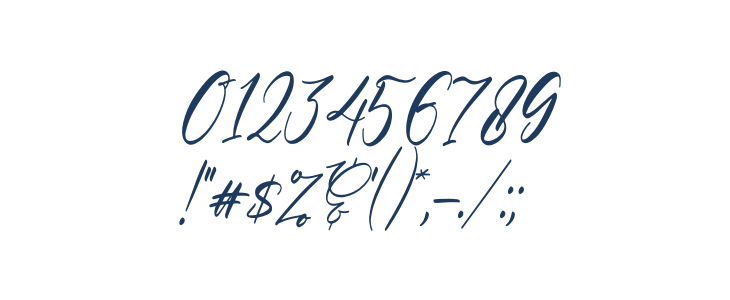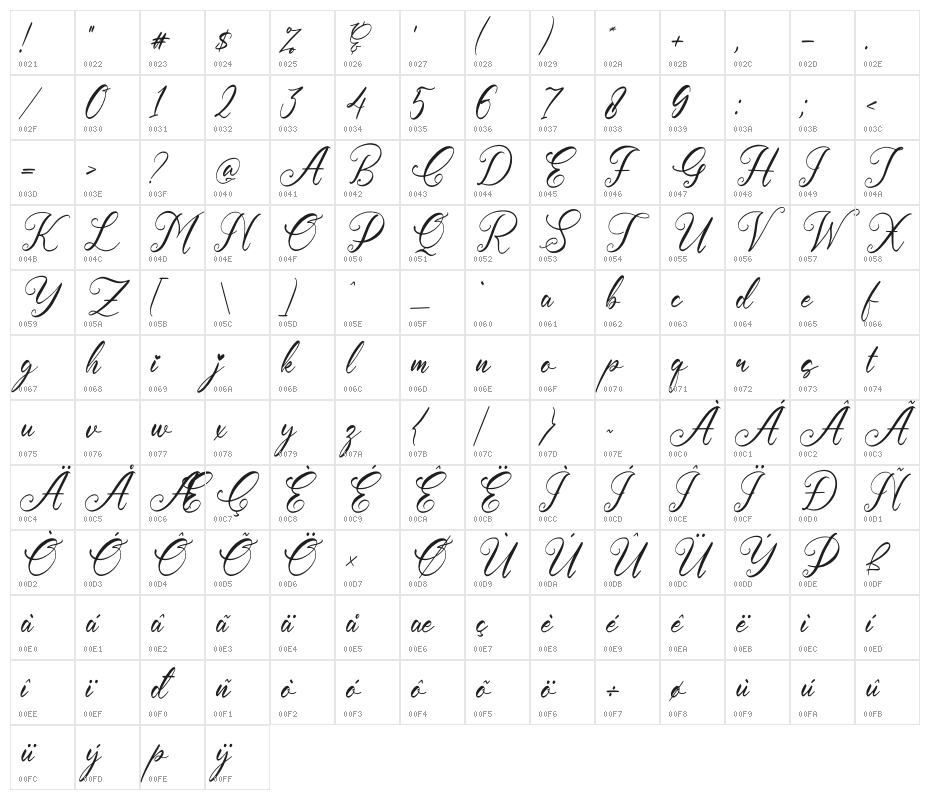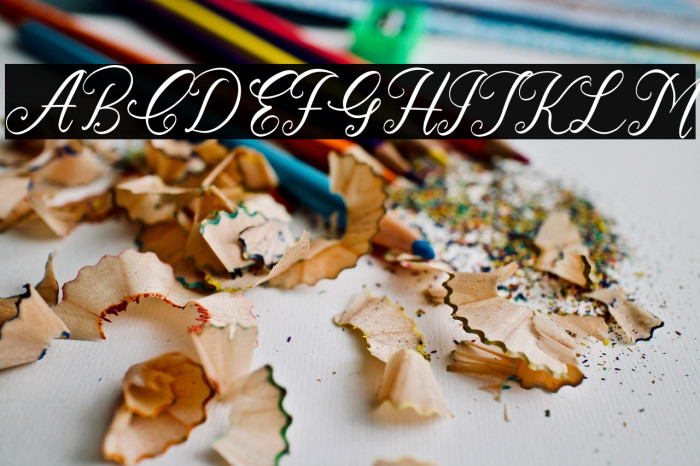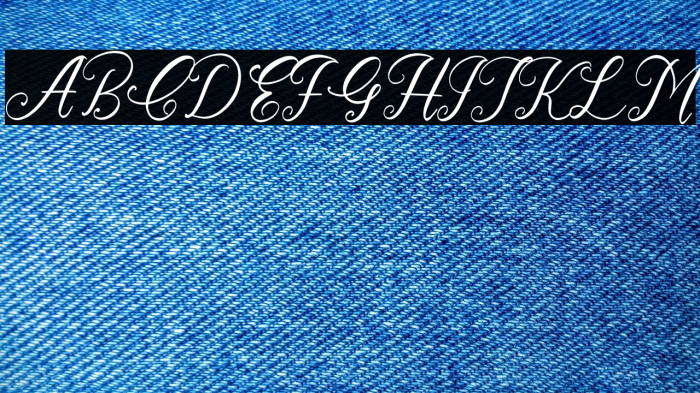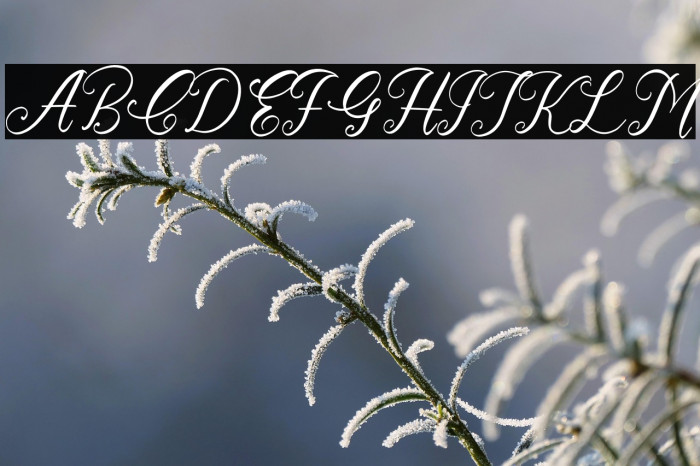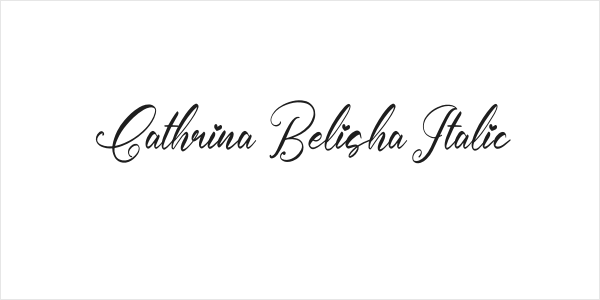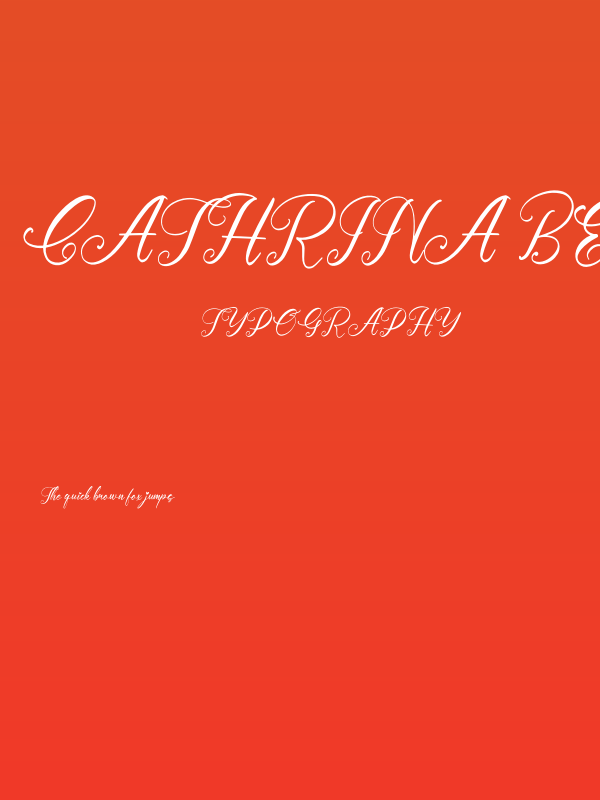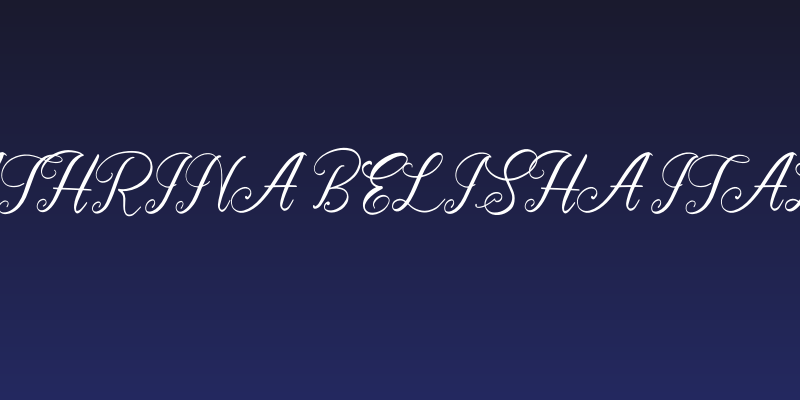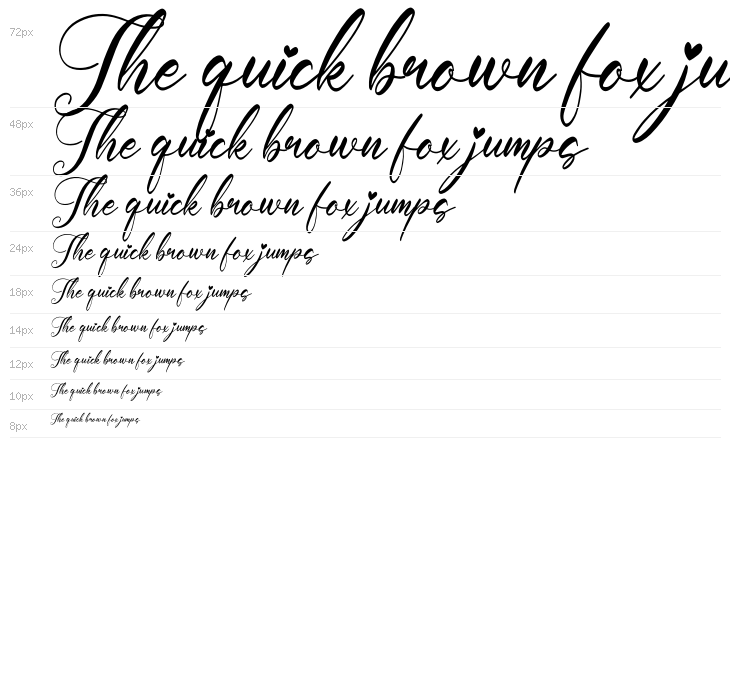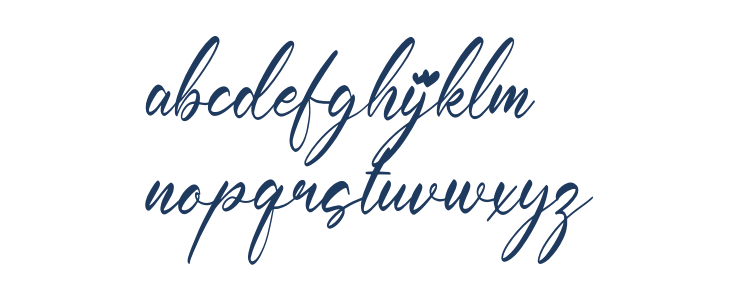
Cathrina Belisha Italic Font
Cathrina Belisha Italic Description
This elegant script font features a flowing, cursive style with intricate loops and swashes, creating a sense of sophistication and grace. The uppercase letters are adorned with decorative flourishes, while the lowercase letters maintain a smooth, connected appearance. The numerals and special characters are designed to complement the overall aesthetic, with a consistent stroke weight that adds to the font's cohesive look. The font's italic nature enhances its fluidity, making it ideal for projects that require a touch of elegance and refinement.
| Overall Style | Elegant, Decorative |
| Proposed Projects | Ideal for wedding invitations, elegant branding, greeting cards, and luxury product packaging. |